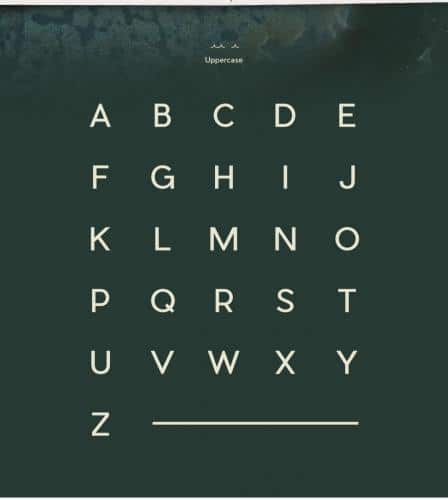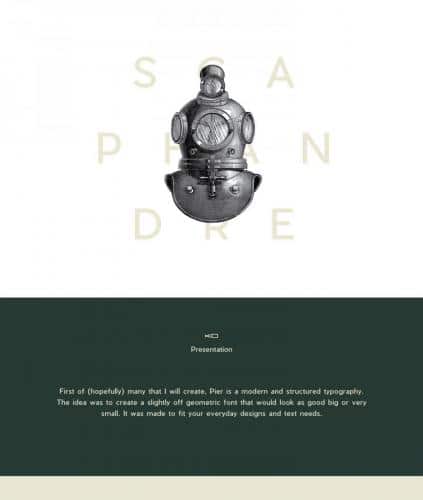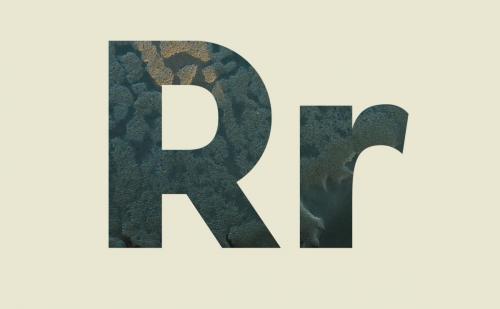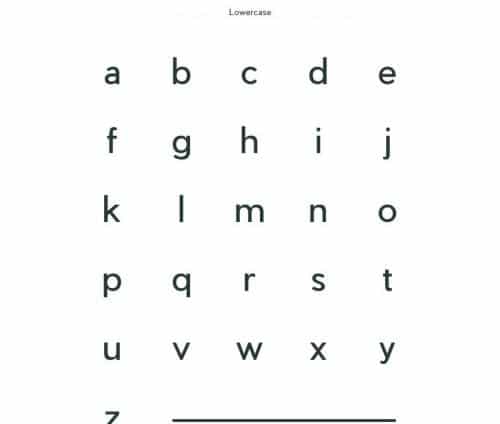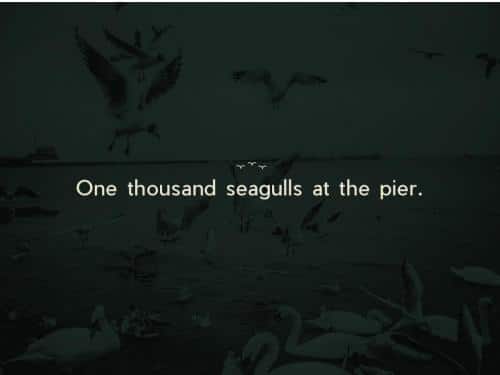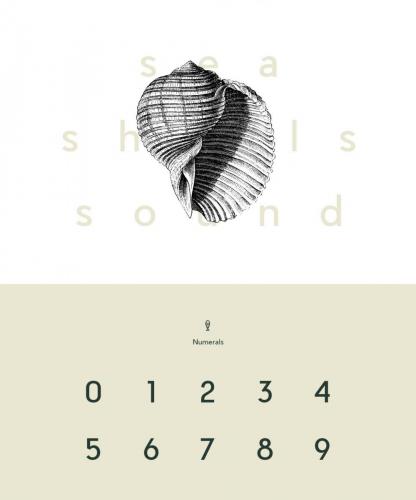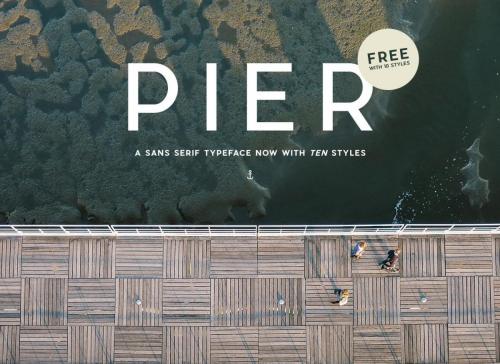
Pier Sans was designed by Mathieu Desjardins. Pier is a modern and structured typography. The idea was to create a slightly off geometric font that would look as good big or very small. It was made to fit your everyday designs and text needs.